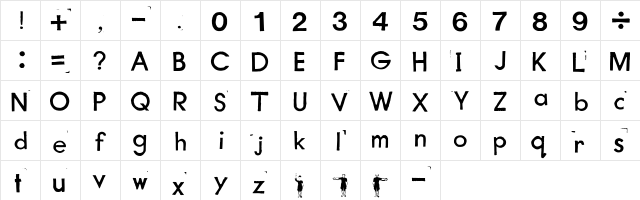
Educational Regular
Design Context for Educational Typeface
Educational takes a measured approach to typography — its balanced proportions and neutral character make it a reliable workhorse for both digital and print work.
Pro Tip: Use Educational in both headline and body roles to test its range before committing to a single application.